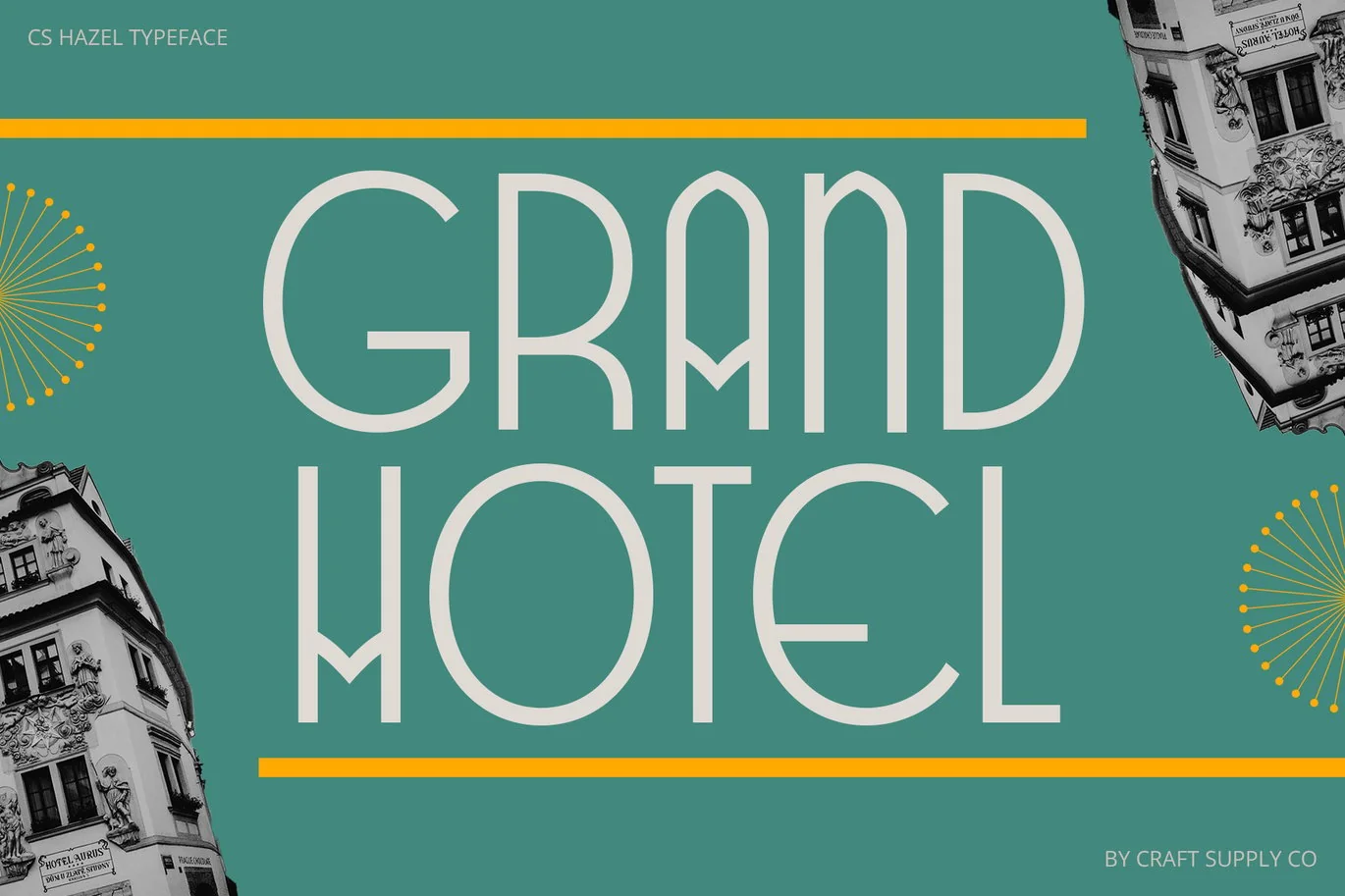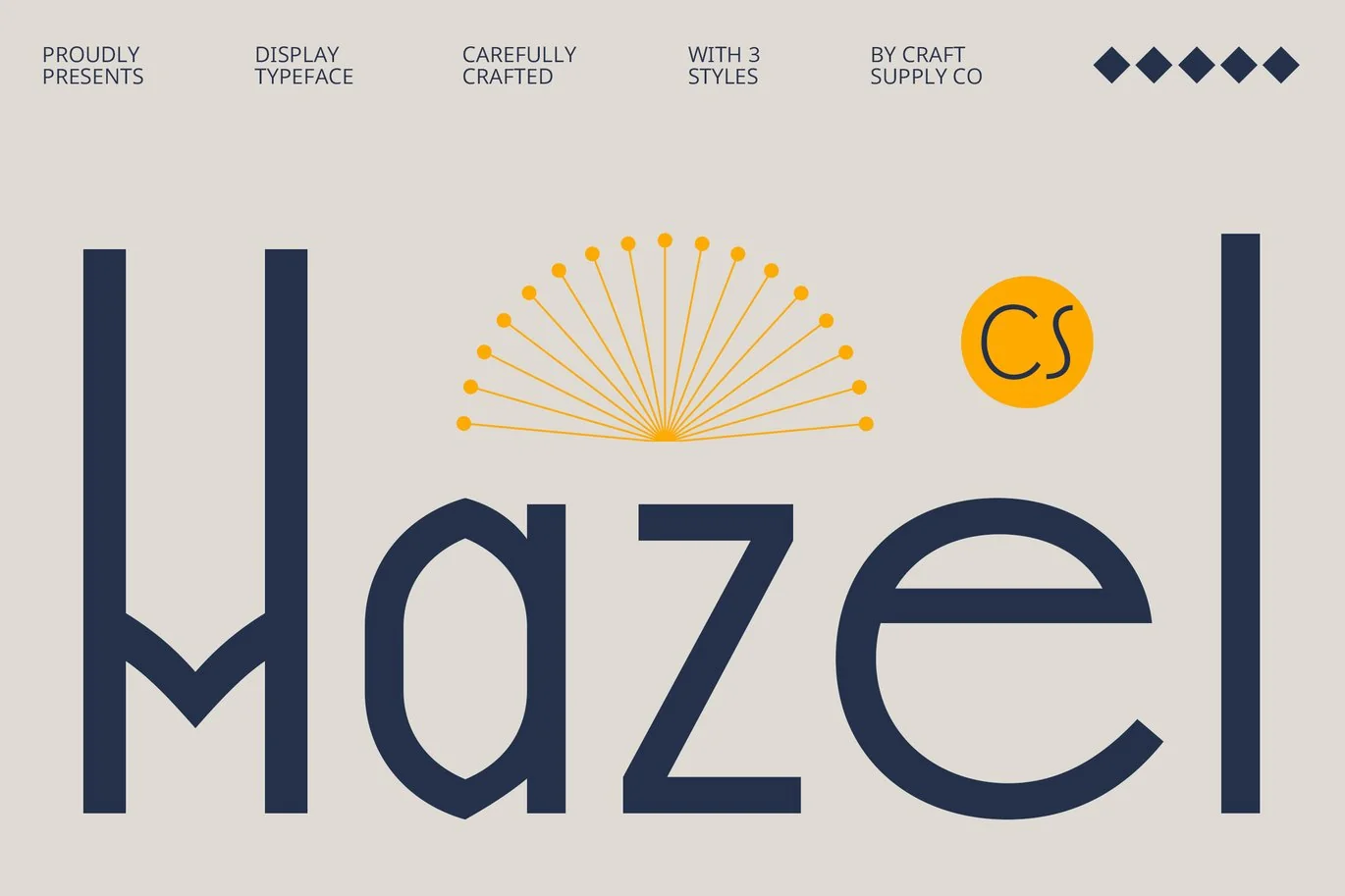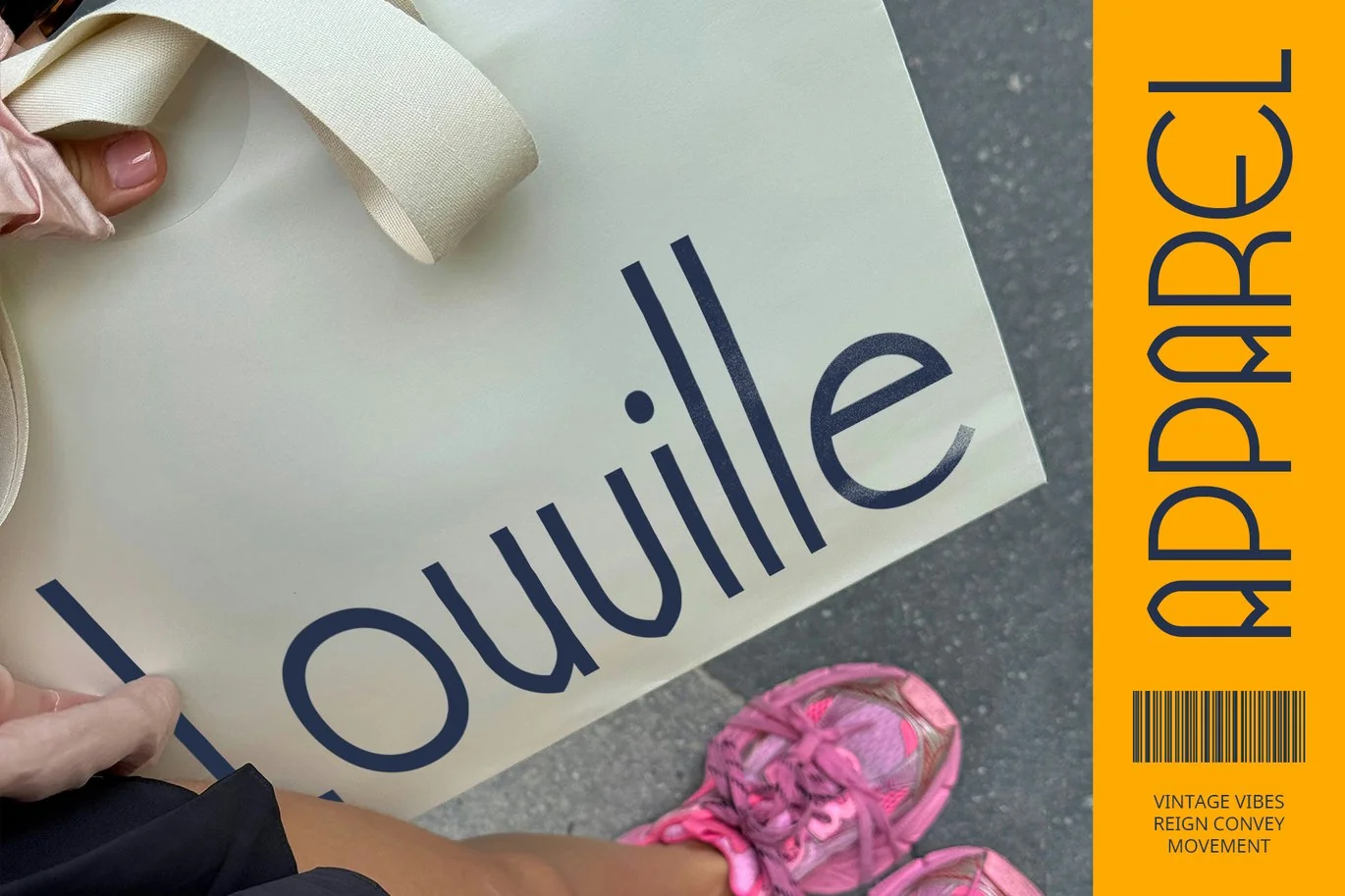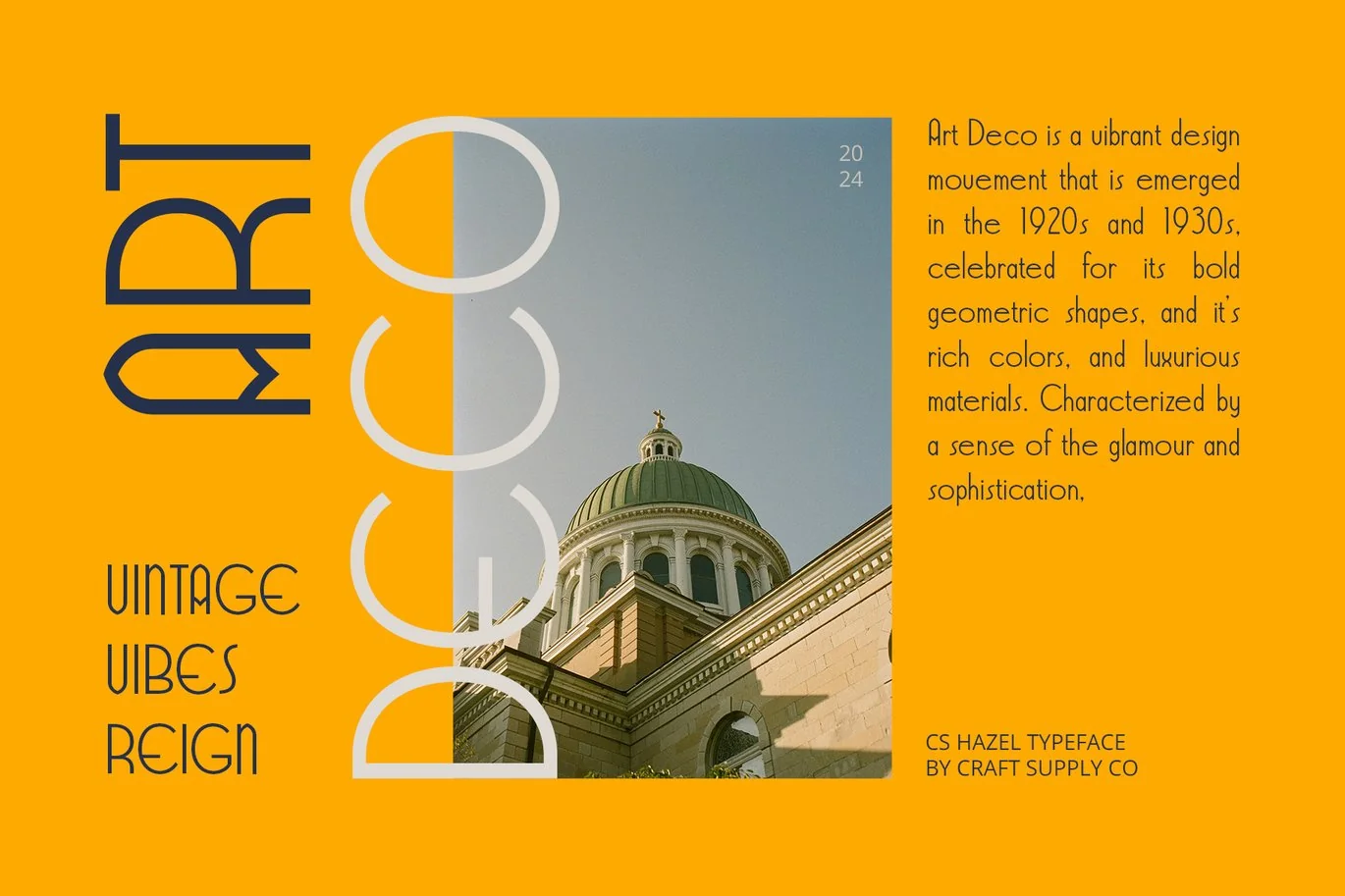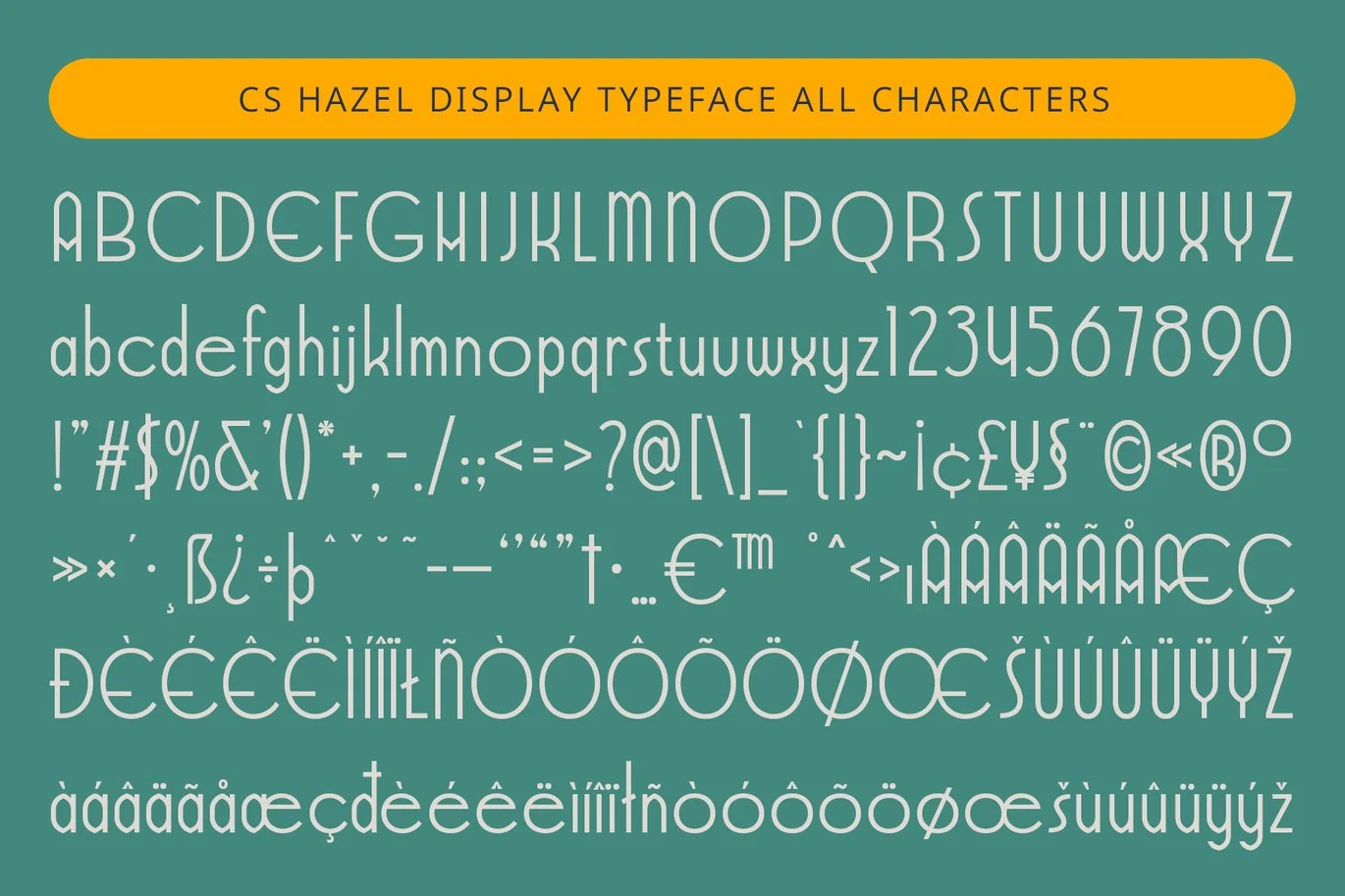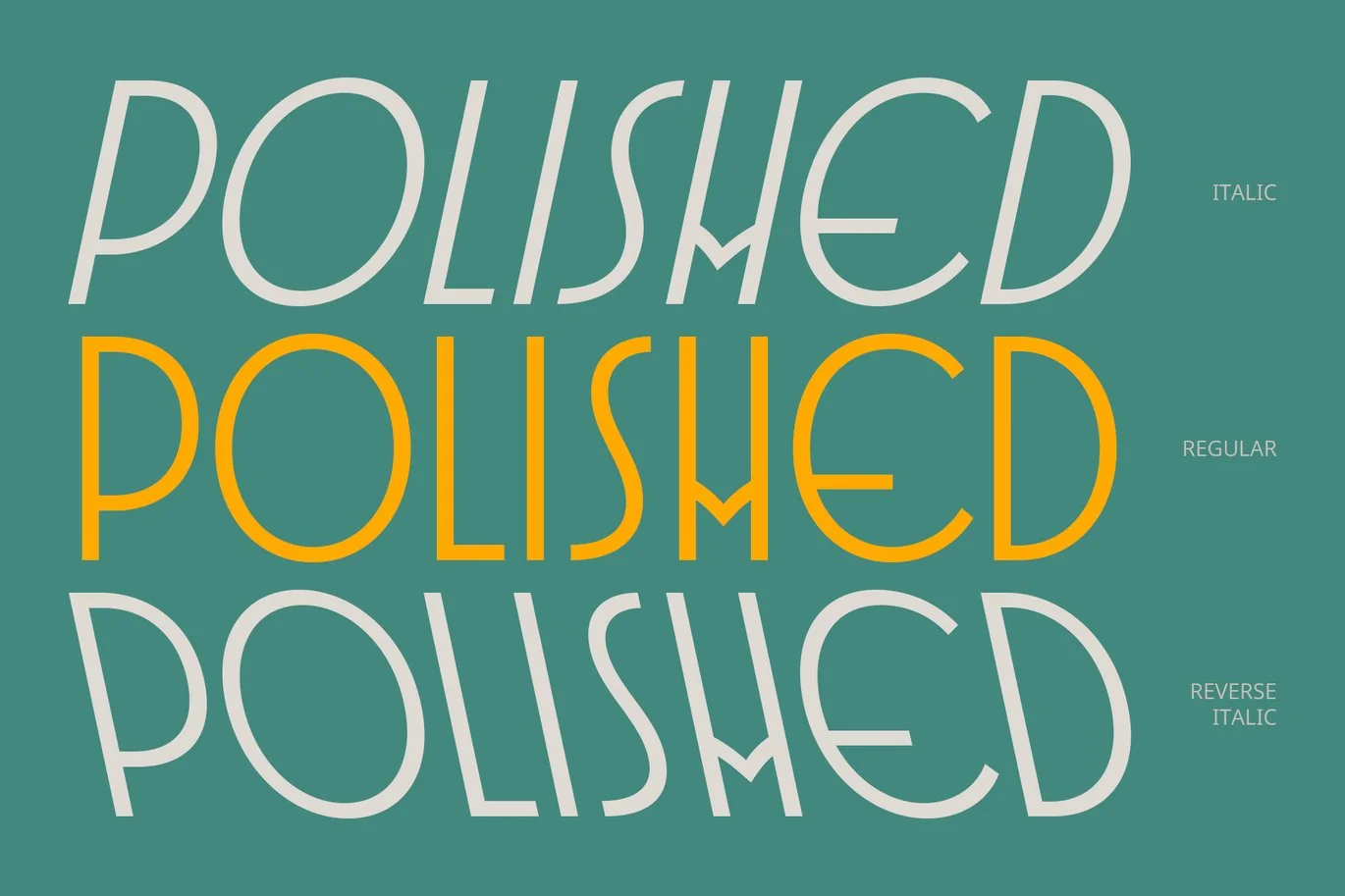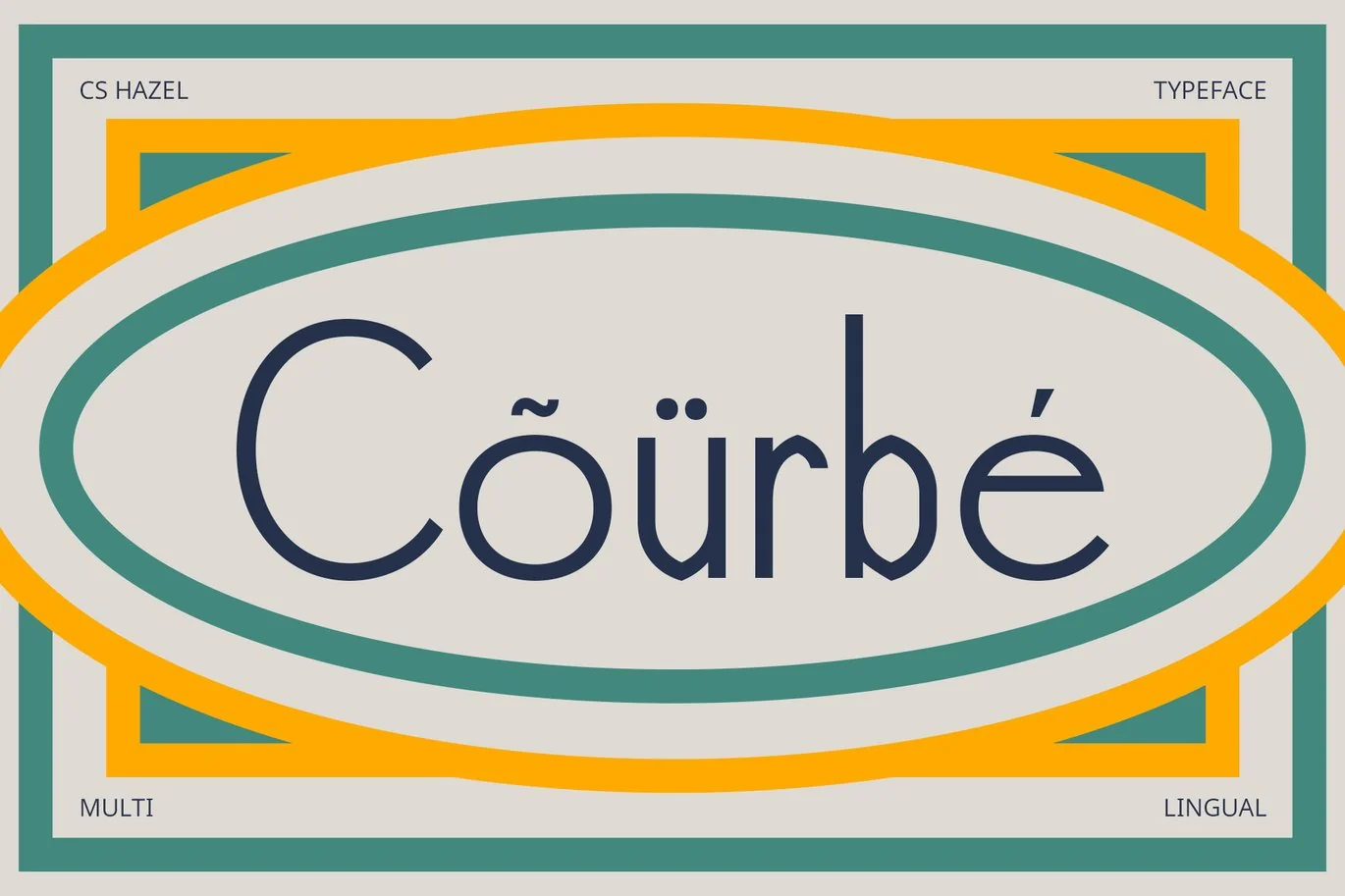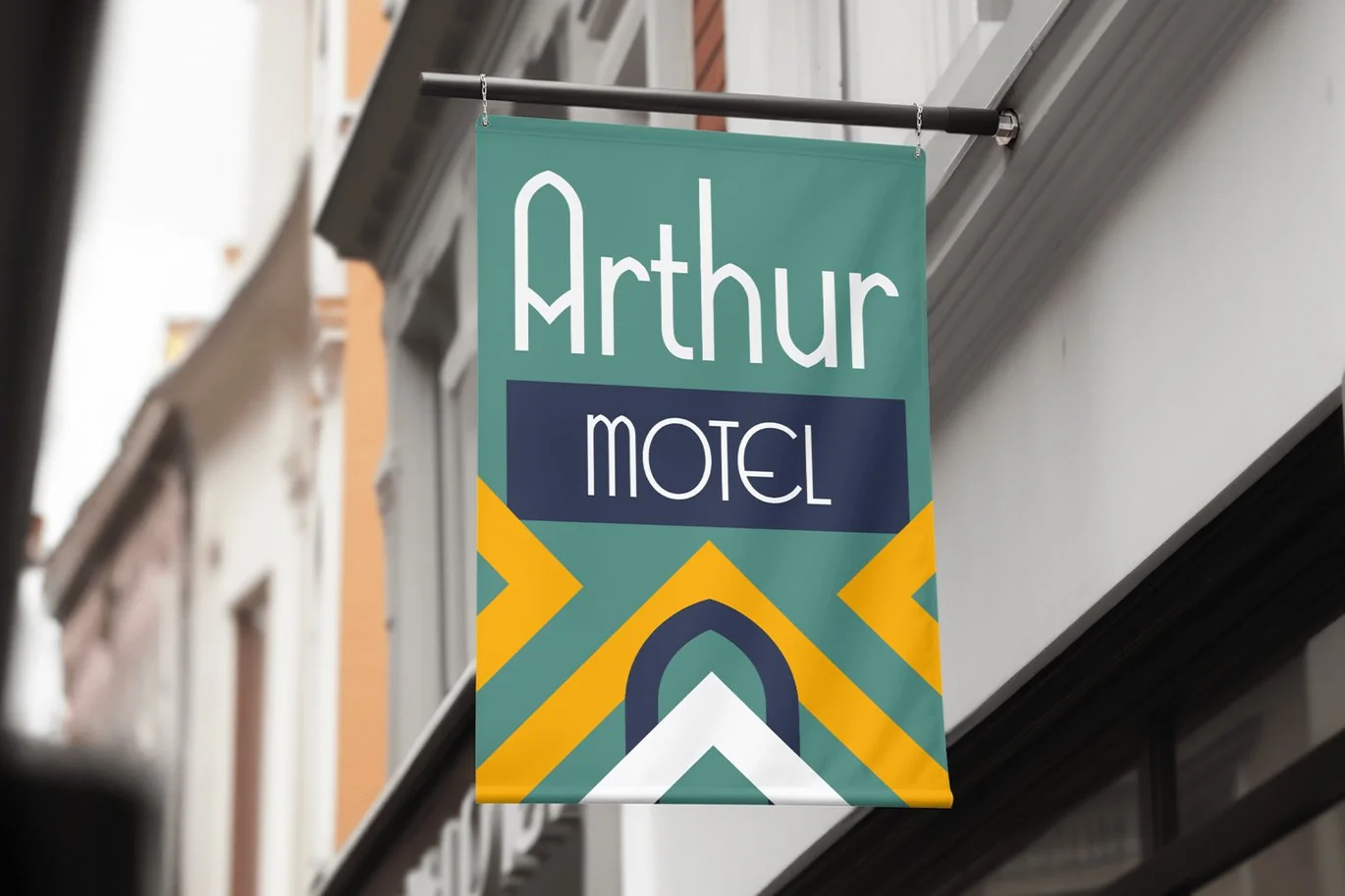
Hazel – Art Deco Font
CS Hazel Font: A Luxurious Blend of Modernity and Art Deco Elegance
Art Deco-Inspired Modern Sans Serif
CS Hazel is a modern sans serif font that artfully combines minimalist and geometric elements with a luxurious Art Deco touch. This unique blend results in a clean, sharp design that exudes elegance and sophistication, making it an ideal choice for branding, advertising, and various design projects requiring strong visual appeal.
Geometric Precision for Timeless Style
With its geometric shapes and precise lines, CS Hazel captures the essence of the Art Deco movement while maintaining a contemporary flair. The characters reflect the opulence of the era, lending a classic feel to your designs. This font is perfect for projects that aim to evoke a sense of timelessness and grandeur, whether used in print or digital media.
Elegant Design for Versatile Applications
The clean and refined nature of CS Hazel allows it to adapt seamlessly to various applications. Whether you’re creating stylish branding, eye-catching advertisements, or elegant invitations, this font provides the sophistication needed to make a lasting impression. Its versatility ensures that it can elevate any project, from luxury product packaging to high-end editorial layouts.